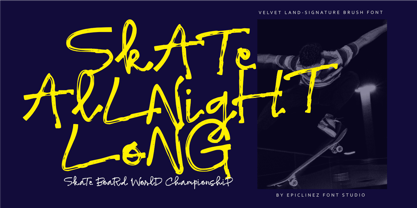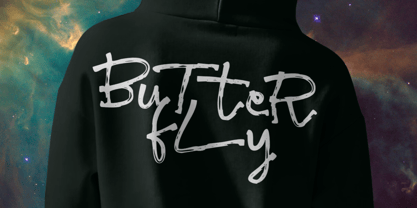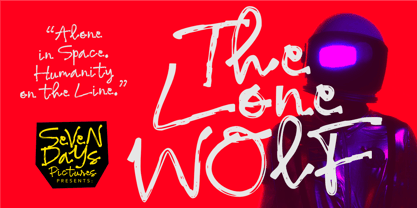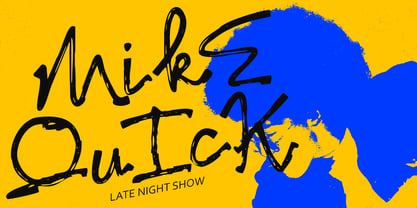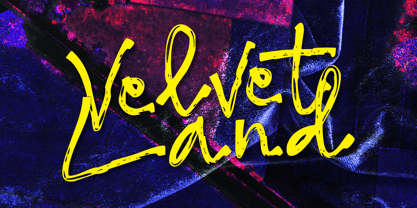
Velvet Land
by Epiclinez
The Velvet Land Font Family was designed by Aldy Sidik and published by Epiclinez. Velvet Land contains 1 styles. More about this family
Velvet Land is a bold brush font crafted with cool textured strokes that bring a raw, expressive, and cinematic feel to every design. With its natural hand-painted style and signature brush details, Velvet Land delivers strong personality and visual impact, making it perfect for logos, movie titles, posters, album covers, branding, merchandise, and eye-catching headlines. Whether you're creating a stylish fashion logo, an action-packed film poster, or bold social media graphics, Velvet Land adds a modern, artistic touch with effortless attitude and authentic brush energy.